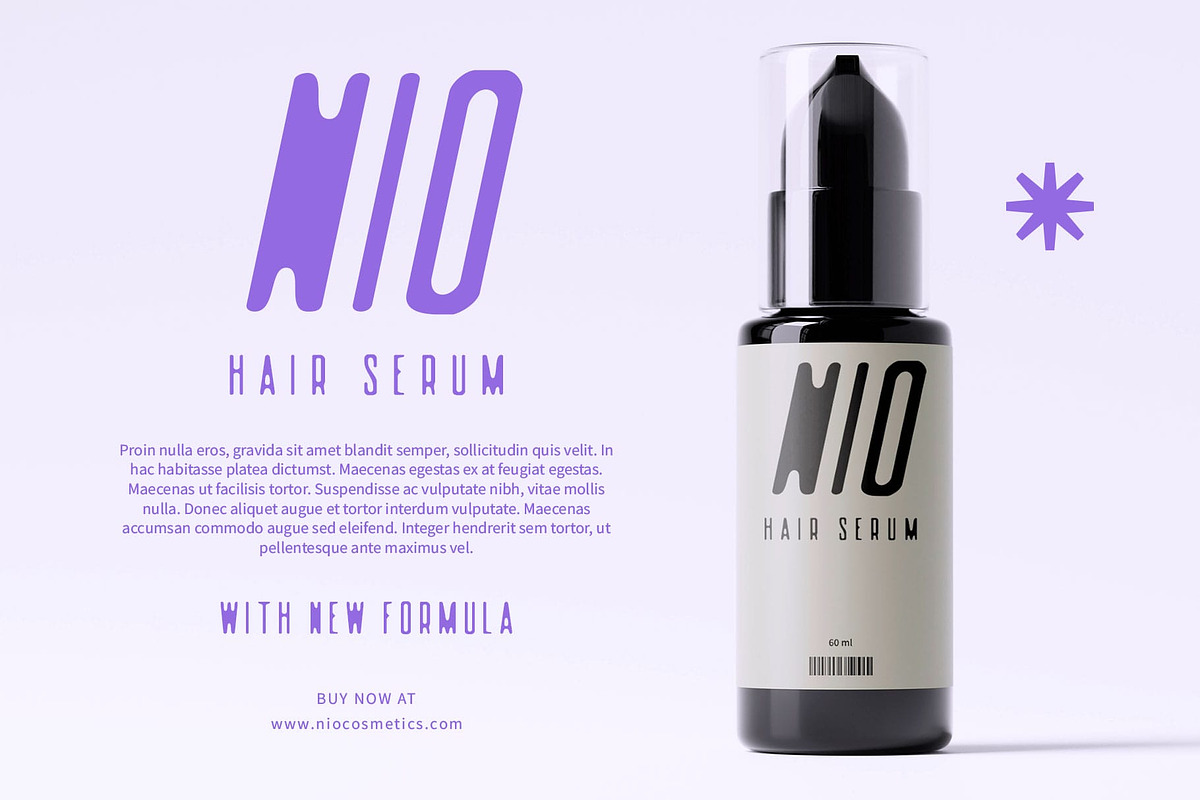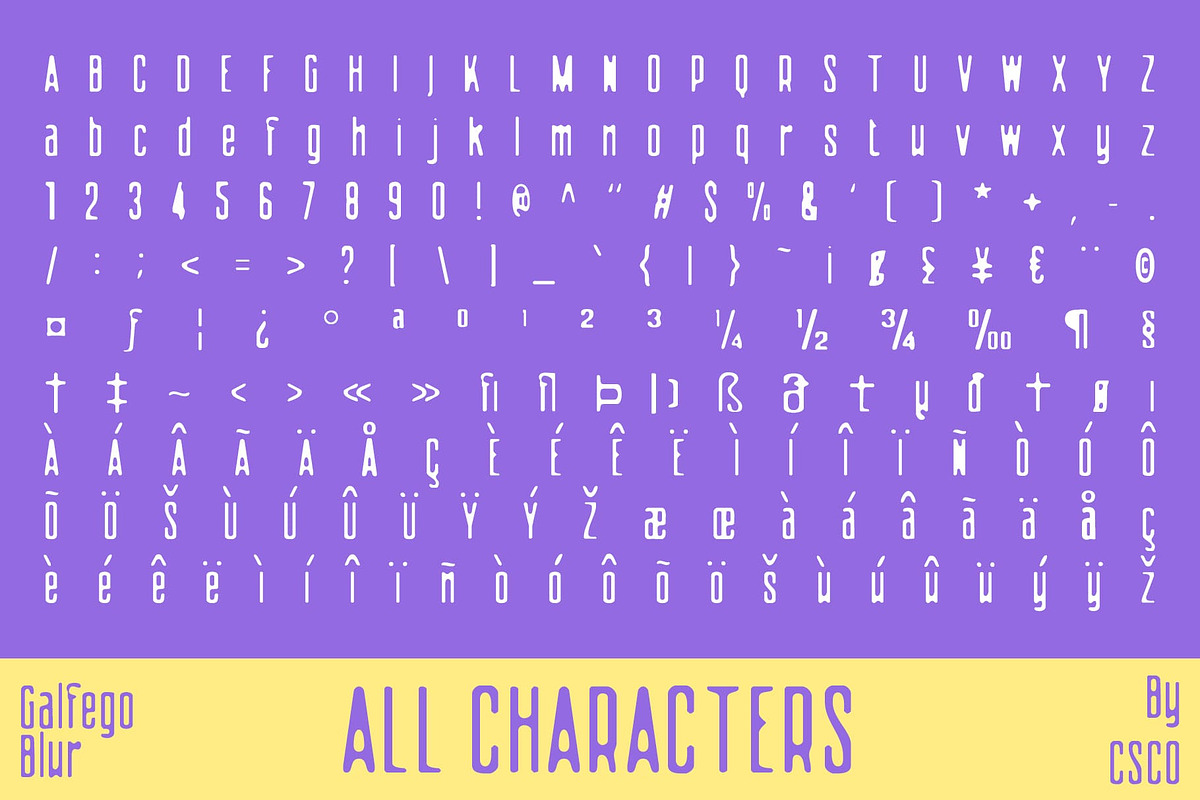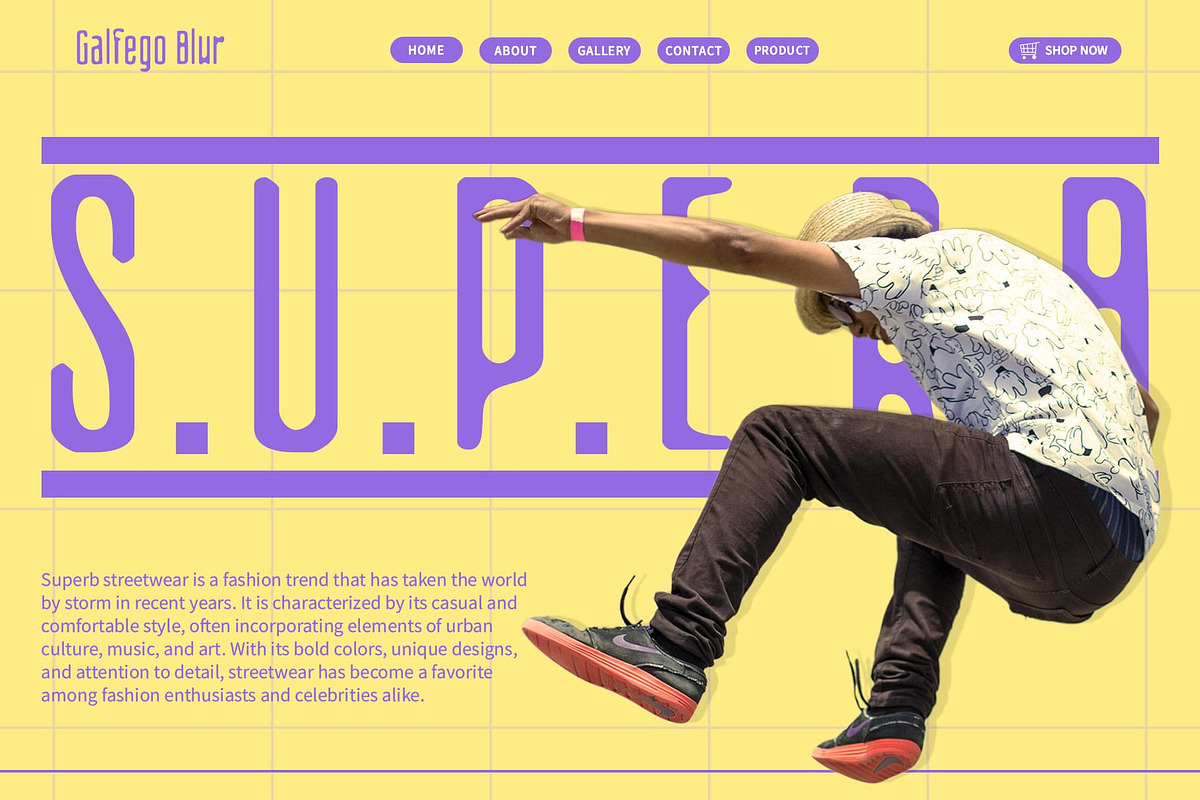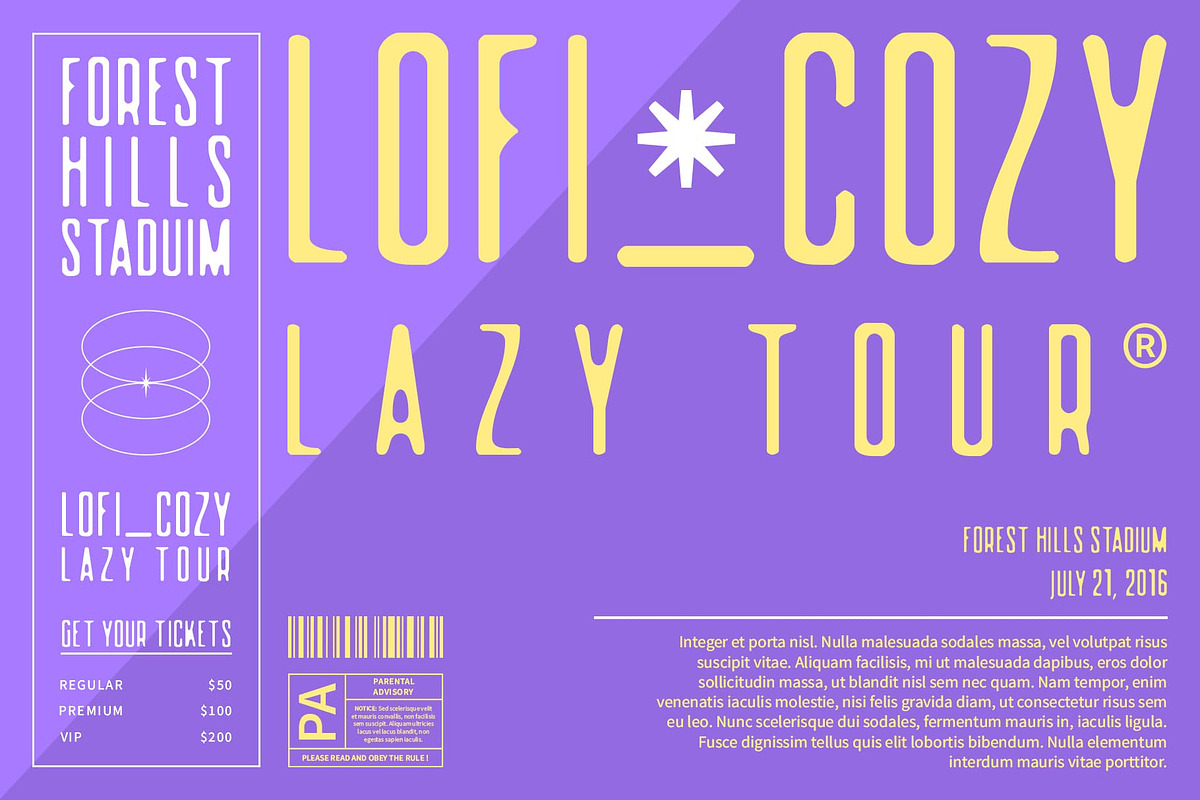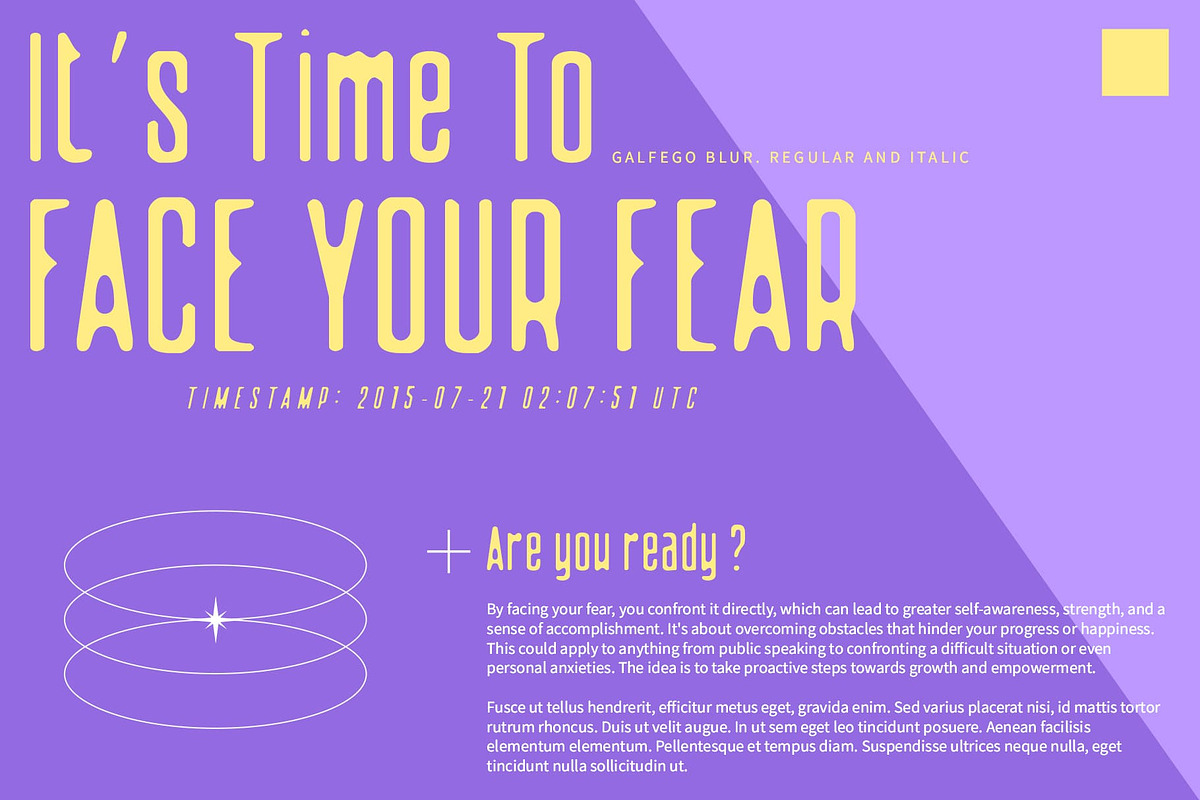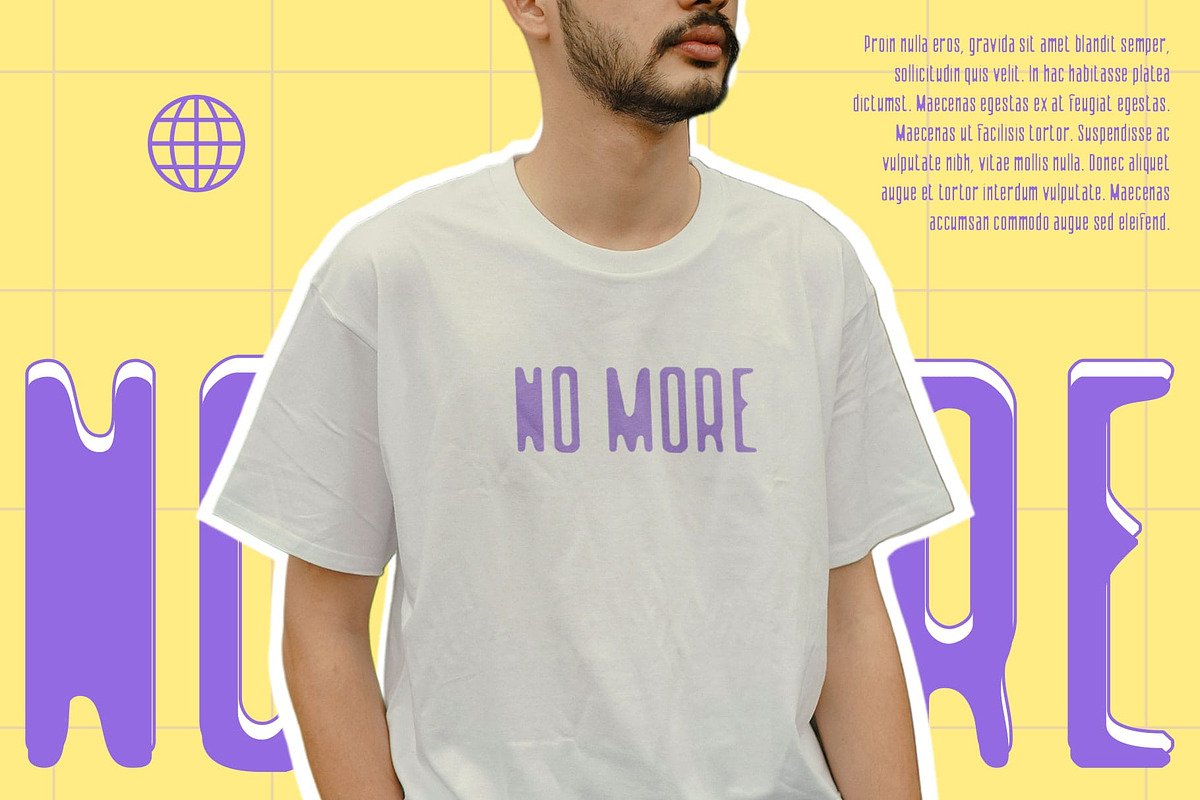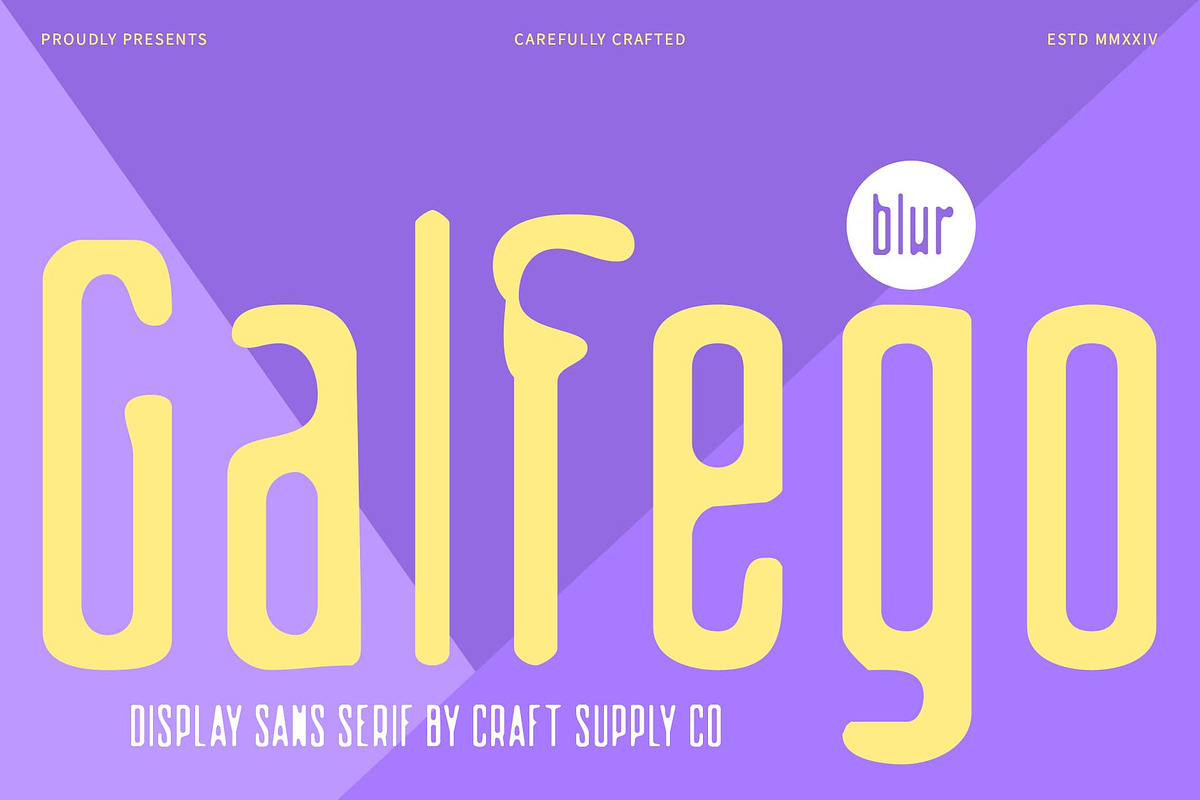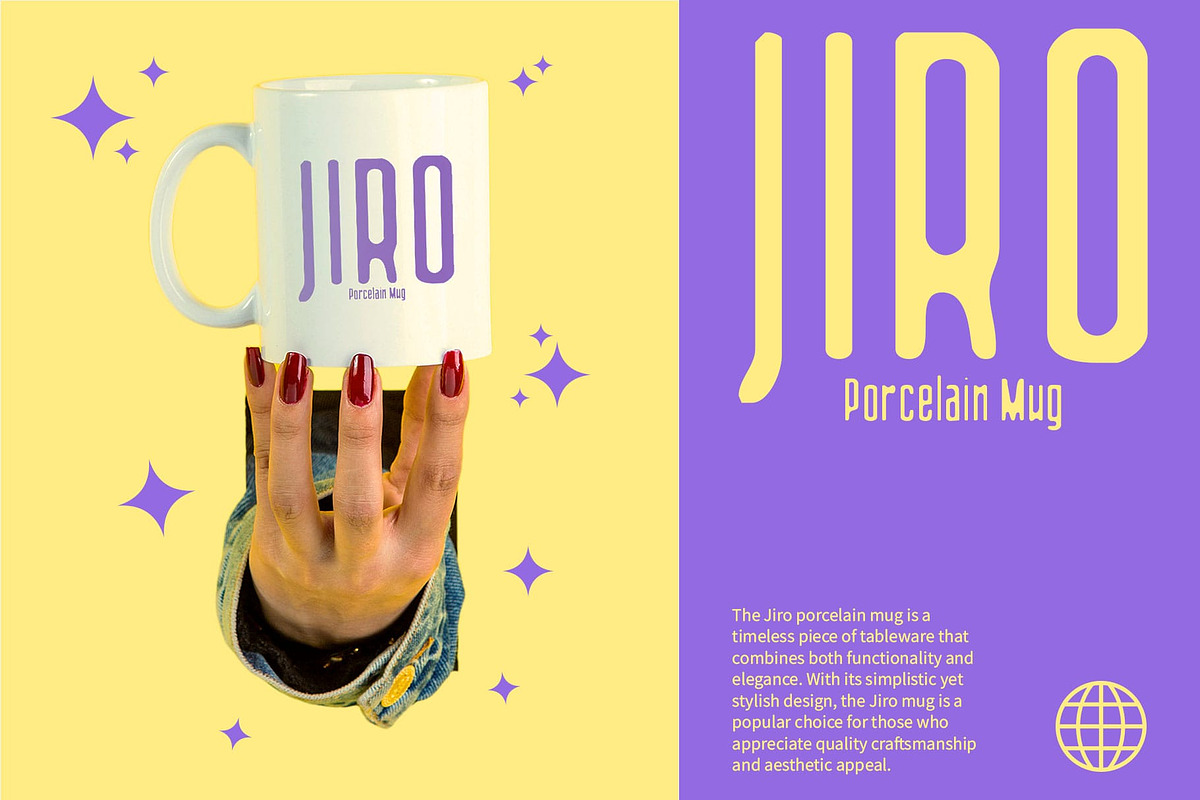
Galfego Blur
Galfego Blur: Condensed Sans-Serif Font with a Blur Effect
Contemporary and Creative Design Galfego Blur is a sans-serif font with a condensed form and a blur effect, making it an appealing choice for contemporary and creative designs.
Efficient Use of Space Its slim and compact shape allows for efficient use of space, ensuring that your text is both readable and visually striking.
Unique and Modern Touch The blur effect adds a unique and modern touch, creating a dynamic and slightly mysterious impression. This makes Galfego Blur ideal for projects that aim to highlight innovation and futuristic aesthetics.
Perfect for Artistic and Cutting-Edge Designs Galfego Blur is perfect for use in poster designs, branding, and digital media that seek to present an artistic and cutting-edge vibe. Its combination of condensed form and blur effect ensures that your designs stand out with a sophisticated and forward-thinking look.